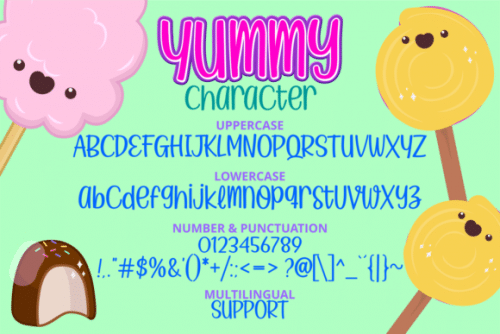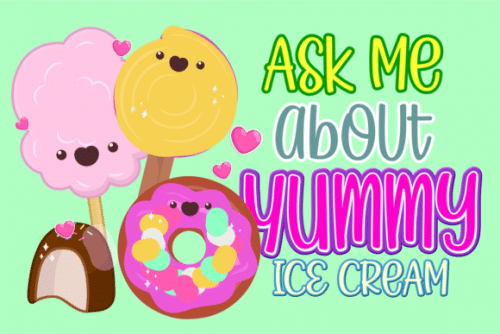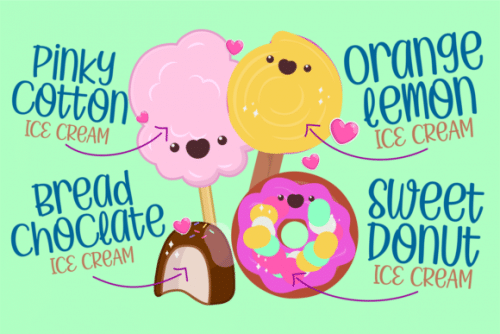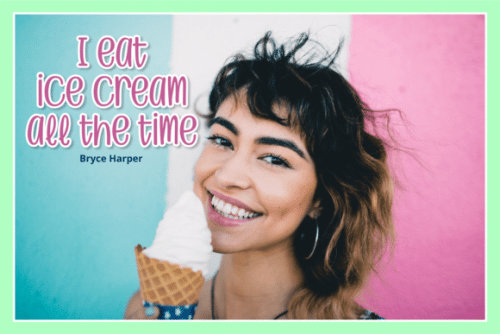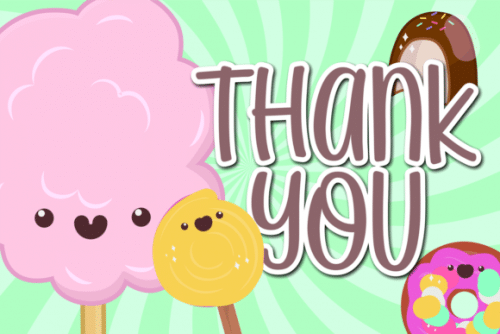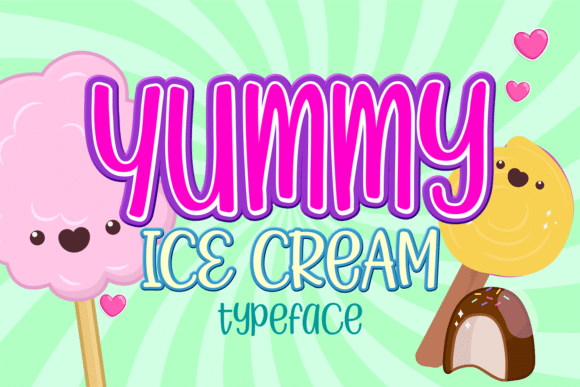
Yummy Ice Cream Font
Yummy Ice Cream is a cute and casual font with a friendly feel. This display font is the perfect fit for all of your logos, branding, social media, and crafty DIY projects.
• Designer: brithostype